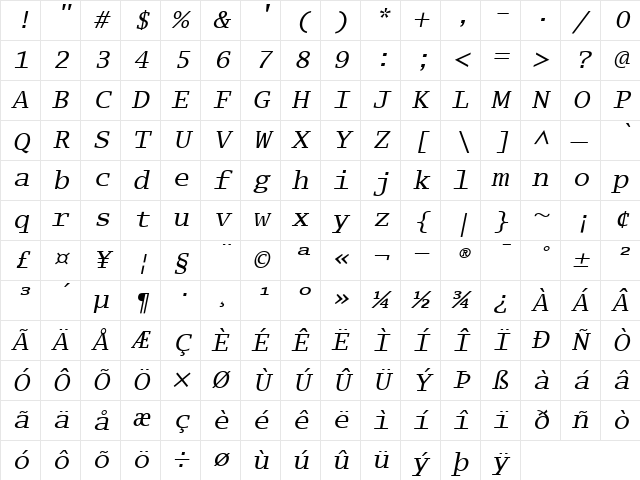
LucidaTypewriter RomanItalic
Style: RomanItalic
Design Context for LucidaTypewriter
LucidaTypewriter uses fixed-width spacing throughout, giving it the structured, systematic character associated with coding environments and technical documentation. The slanted form adds forward momentum and visual energy.
Pro Tip: Use LucidaTypewriter with slightly increased line-height for extended reading - fixed-width spacing can feel dense in longer passages without extra breathing room.